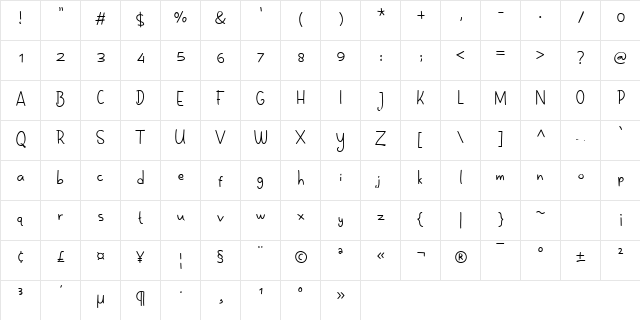
Melon hunter Regular
Melon hunter is a composed and adaptable typeface that performs quietly and consistently across a wide range of design contexts.